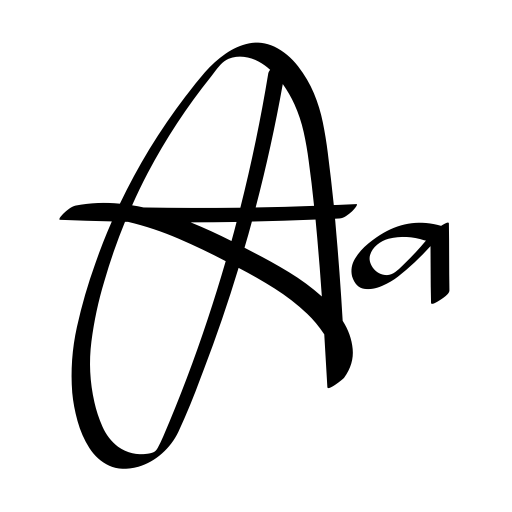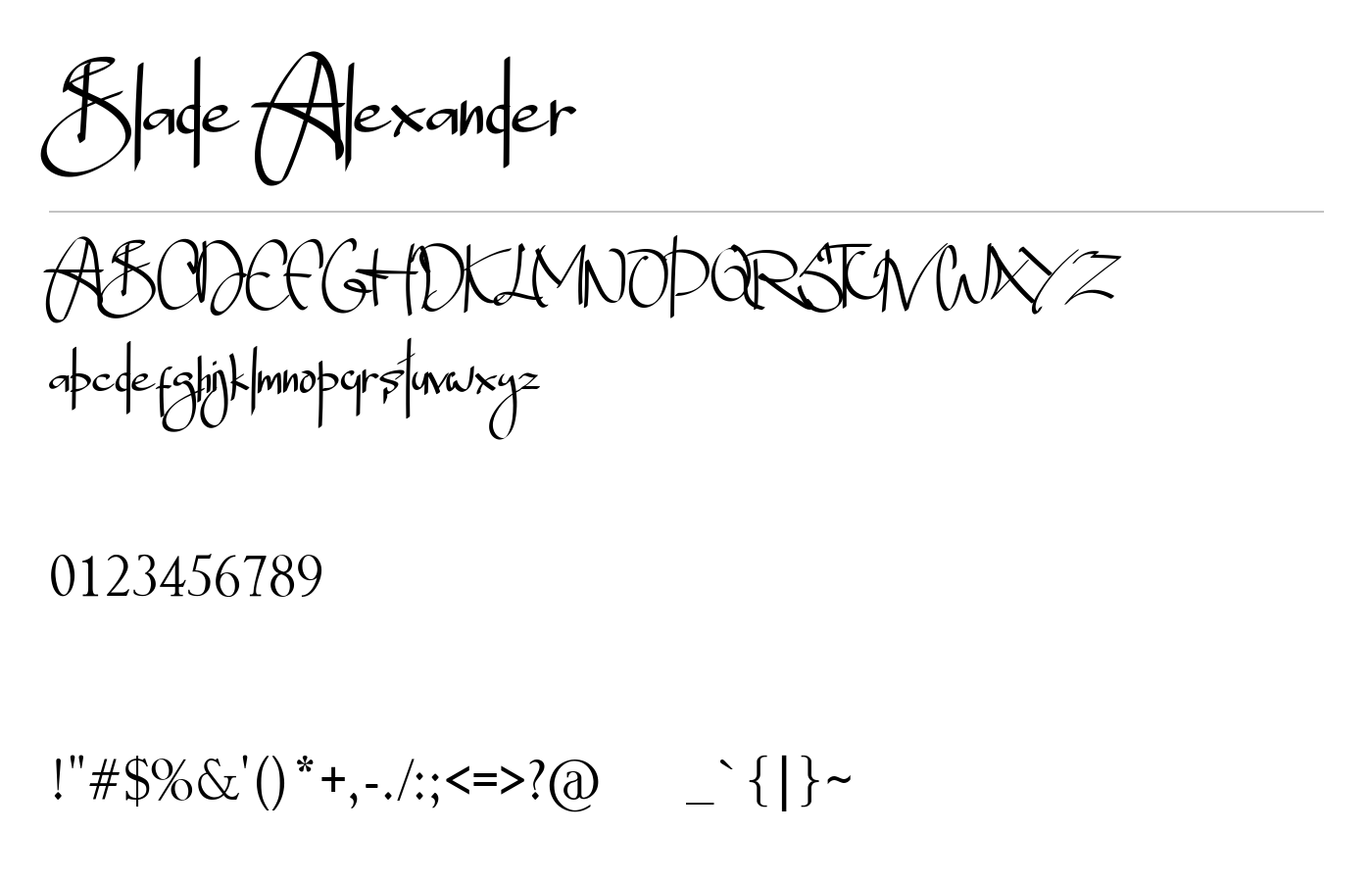
Blade Alexander is a distinctive handwritten script font featuring tall, slender letterforms with elegant, flowing strokes and sharp, angular details. Its creative, calligraphic style lends a sophisticated yet edgy feel, making it ideal for artistic branding, invitations, and expressive headlines where personality and flair are desired. The font’s unique character shapes and dynamic rhythm give it a striking presence, perfect for projects seeking a blend of elegance and modern creativity.
Blade Alexander Font
About Blade Alexander Font
| Font family | Blade Alexander Font |
| Designer | DENIS |